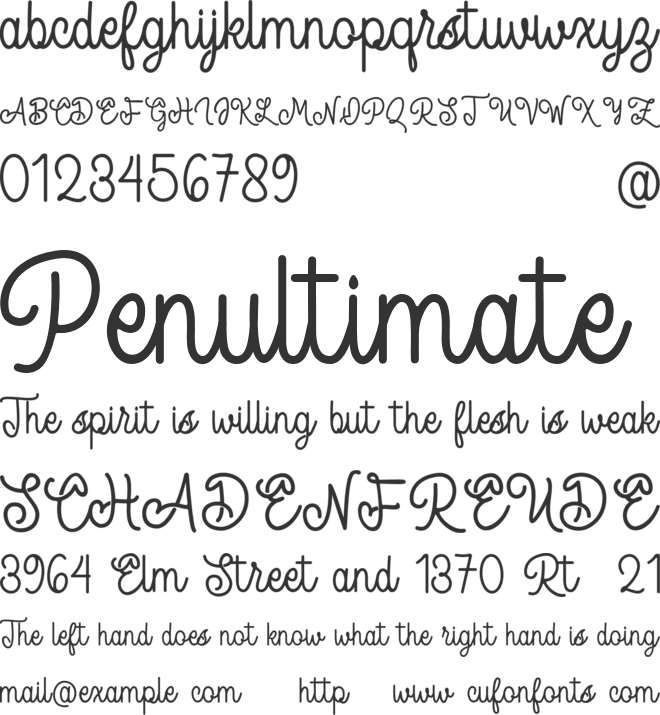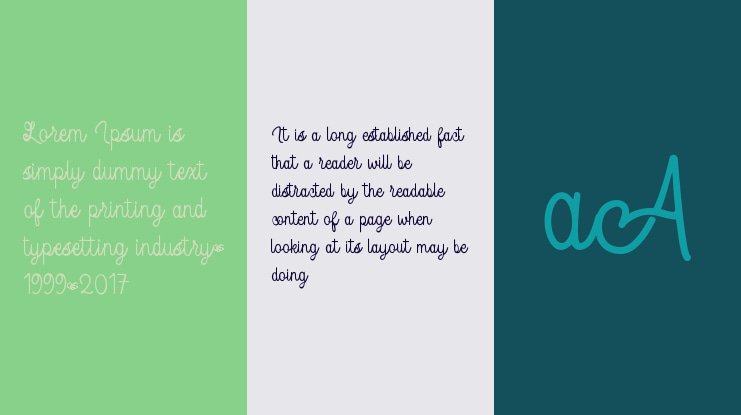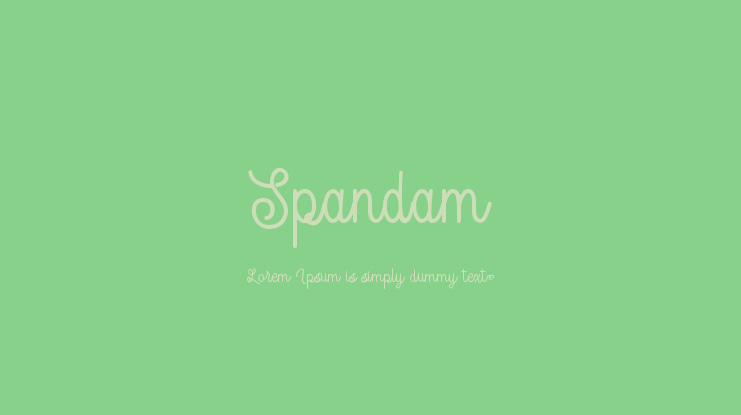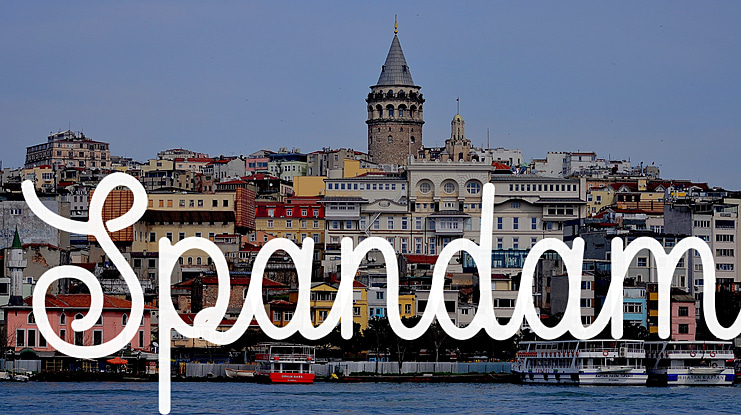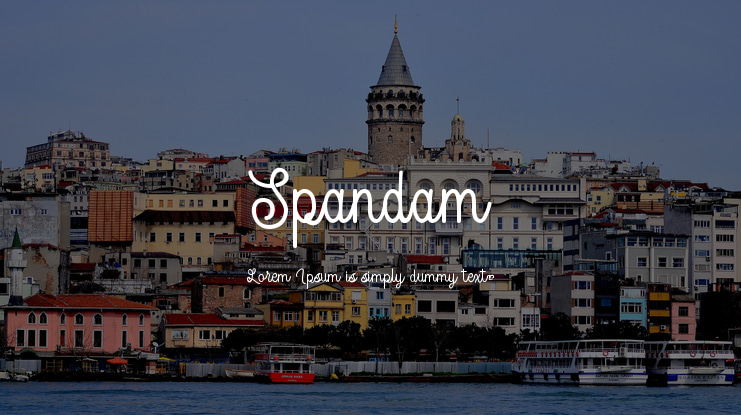
Spandam Font
Introducing the new vintage Spandam Font. Inspired by old style typography combined with modern typography style. Comes with an open type feature with many alternatives and swash endings, Spandam Vintage uses the best for Logotype, headings, covers, posters, logos, quotes, product packaging, headers, merchandise, social media & greeting cards and much more. This font also supports multi languages. To access alternative flying machines, you need a program that supports OpenType features such as Adobe Illustrator CS, Adobe Photoshop CC, Adobe Indesign and Corel Draw.
feature : Clean & Rough Uppercase & Lowercase  Numeral & Punctuation  Ligatures  Alternate  Multilingual Support